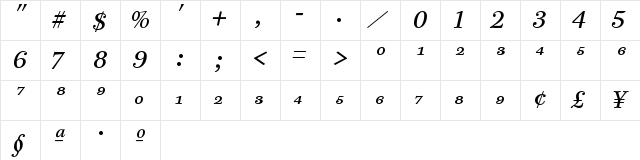
PB12TTP-ItalicFrac Regular Font Preview
PB12TTP-ItalicFrac Regular
Design Context for PB12TTP-ItalicFrac Typeface
PB12TTP-ItalicFrac is a composed and adaptable typeface that performs quietly and consistently across a wide range of design contexts. The dynamic lean of this cut emphasises speed and emphasis in any layout.